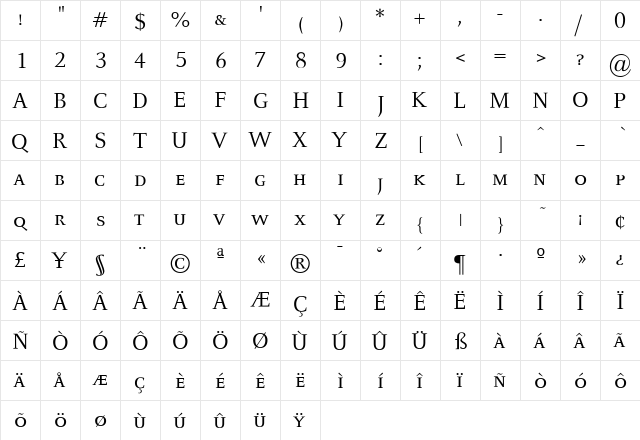
CelesteCaps Regular
Design Context for CelesteCaps Typeface
CelesteCaps is a composed and adaptable typeface that performs quietly and consistently across a wide range of design contexts.